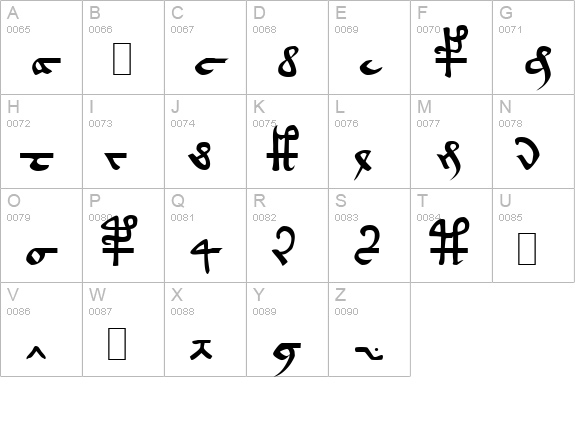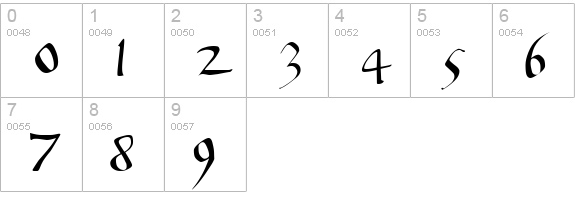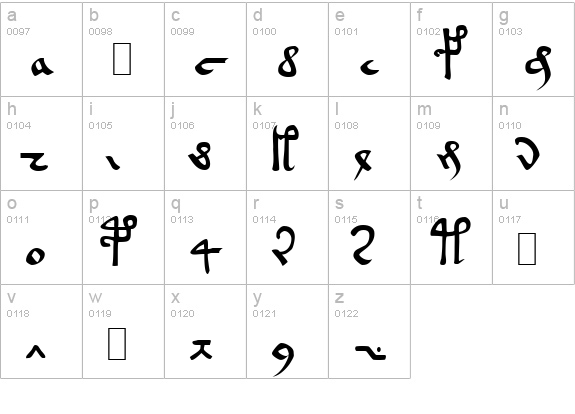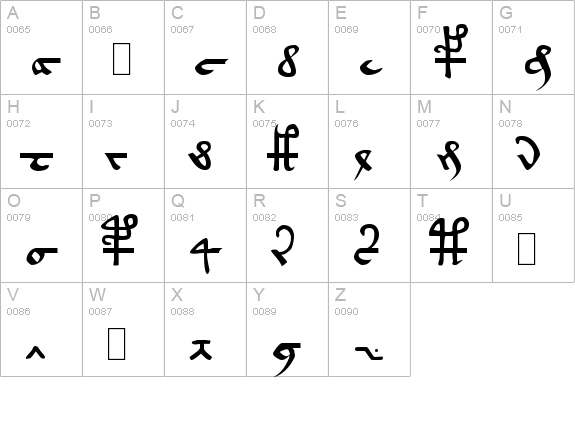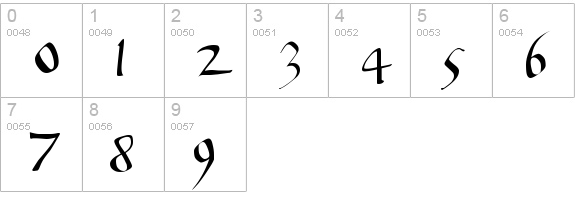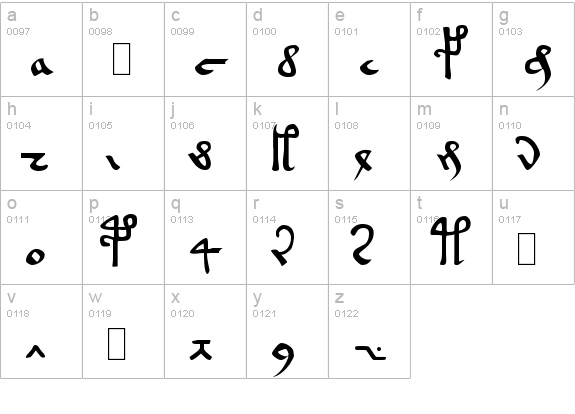
Voynich EVA Hand A Font Details
Introducing Voynich EVA Hand A, a captivating and enigmatic font that will transport you to a world of mystery and intrigue. Inspired by the enigmatic Voynich Manuscript, this font offers a unique blend of ancient beauty and contemporary design. With its intricate and ornate characters, Voynich EVA Hand A exudes an aura of secrecy and fascination. Each letter in this font is meticulously crafted, combining elegant curves and delicate lines to create a truly mesmerizing visual experience. The flowing nature of the strokes adds a sense of movement and fluidity, as if the letters themselves have a life of their own. It is as if you can almost hear the whispers of ancient secrets as you gaze upon each character. Voynich EVA Hand A is not just a font, but a journey into the unknown. Its distinct style captures the essence of the Voynich Manuscript, a mysterious text that has baffled scholars and historians for centuries. Now, you can embrace the mystery and delve into its secrets with this captivating font. What makes Voynich EVA Hand A even more appealing is that it is freely available to download at FontsMarket.com. Yes, you read that right – this extraordinary font can be yours without any cost. Whether you are a designer looking to add a touch of intrigue to your projects or simply a curious soul seeking to explore the enigmatic world of the Voynich Manuscript, Voynich EVA Hand A is the perfect font for you. So, why wait? Unleash your creativity and embark on a journey like no other with Voynich EVA Hand A. Download this remarkable font today from FontsMarket.com and let the secrets of the Voynich Manuscript come alive on your screen.